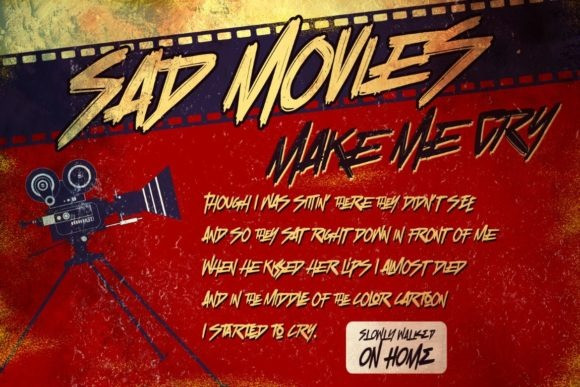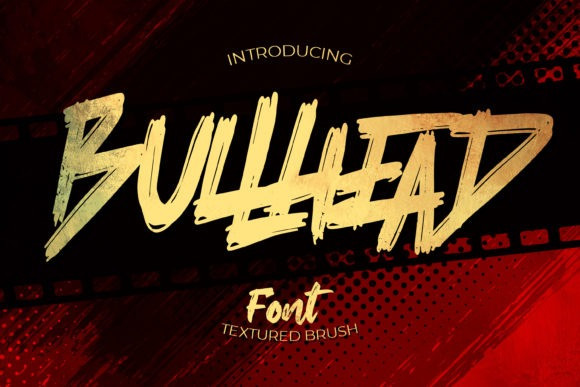
Bullhead Font
Bullhead Brush Font is an awesome, graffiti-styled display font that has a street art vibe. This font is suitable for designs such as t-shirts, sportswear, logos, advertisements, clothing, and more.